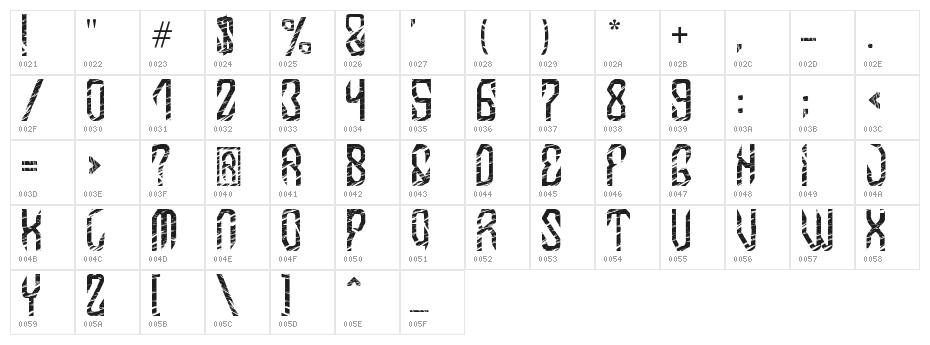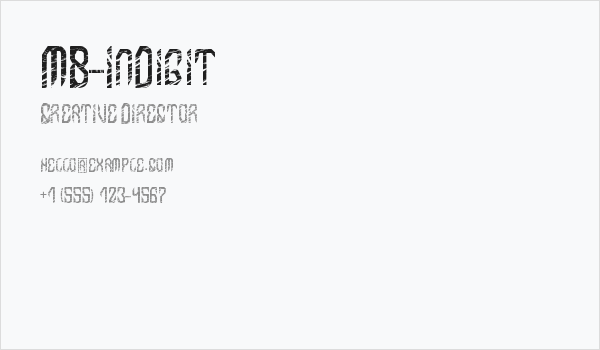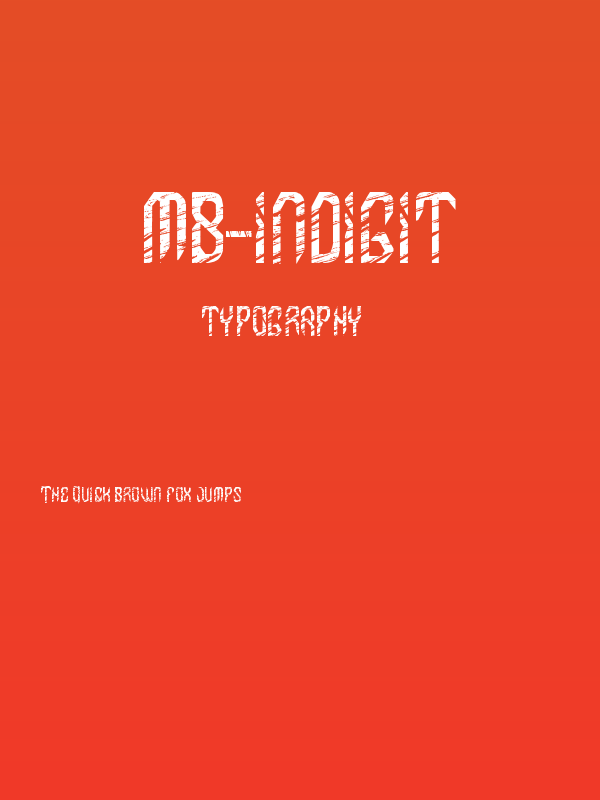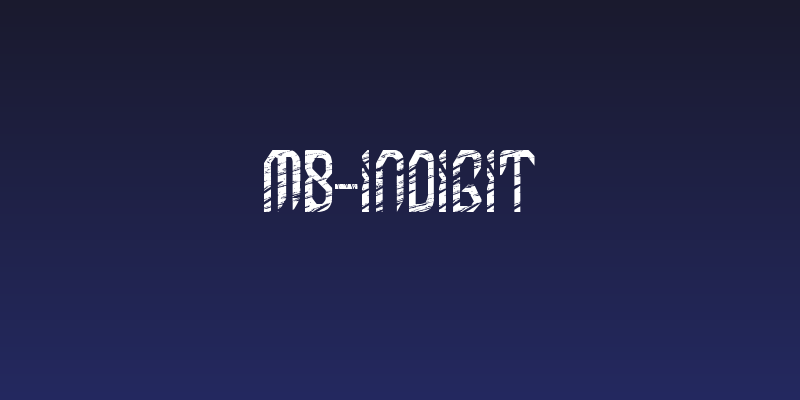
MB-InDigit Font
✎ Distorted Eroded
| Categorie | Distorted Eroded |
| Stile generale | Industrial, Rugged |
| Progetti proposti | Ideal for branding, posters, album covers, and any design needing a strong, industrial look. |